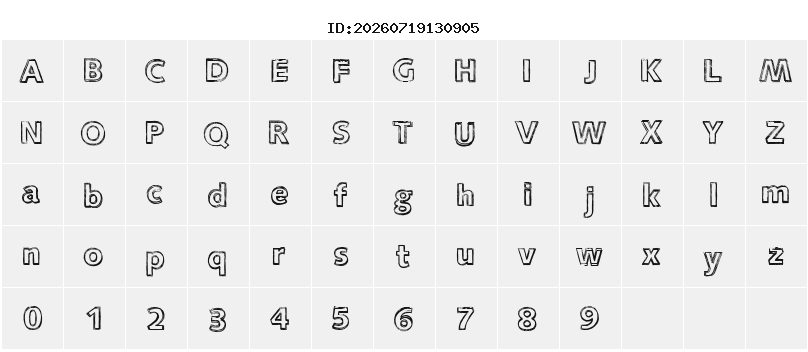
Closure Preview
• Font Name: Closure
• Designer: Kevin Christopher
About Closure.ttf
Closure.ttf is a modern, elegant sans-serif font designed for ultimate readability and visual harmony. Perfect for branding, headlines, web design, and print materials.